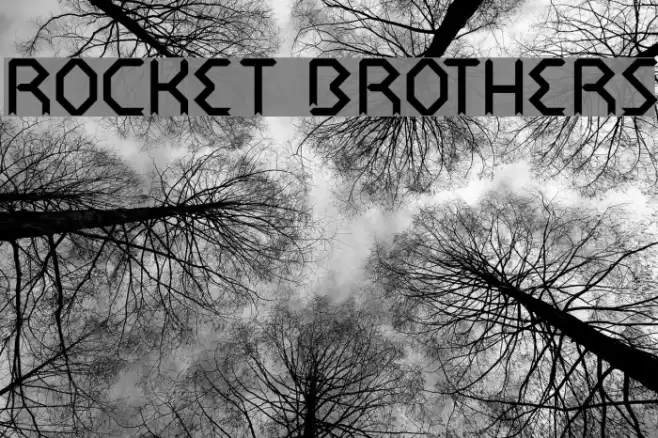
rocket brothers Font
rocket brothers Description
This font features a bold, geometric design with sharp angles and a futuristic aesthetic. The characters are constructed with a consistent thickness, giving them a strong, cohesive appearance. The angular cuts and pointed edges create a dynamic and energetic feel, making it ideal for projects that require a modern and edgy look. The uppercase letters are particularly striking, with a uniform height and width that enhances readability while maintaining a unique style. The font's design is reminiscent of digital or sci-fi themes, making it suitable for creative and innovative applications.
A bold, geometric font with sharp angles and a futuristic style from Uncategorized fonts.
- Proposed Projects: Ideal for sci-fi themed posters, video game graphics, tech branding, and futuristic designs.
- Overall Style: Futuristic